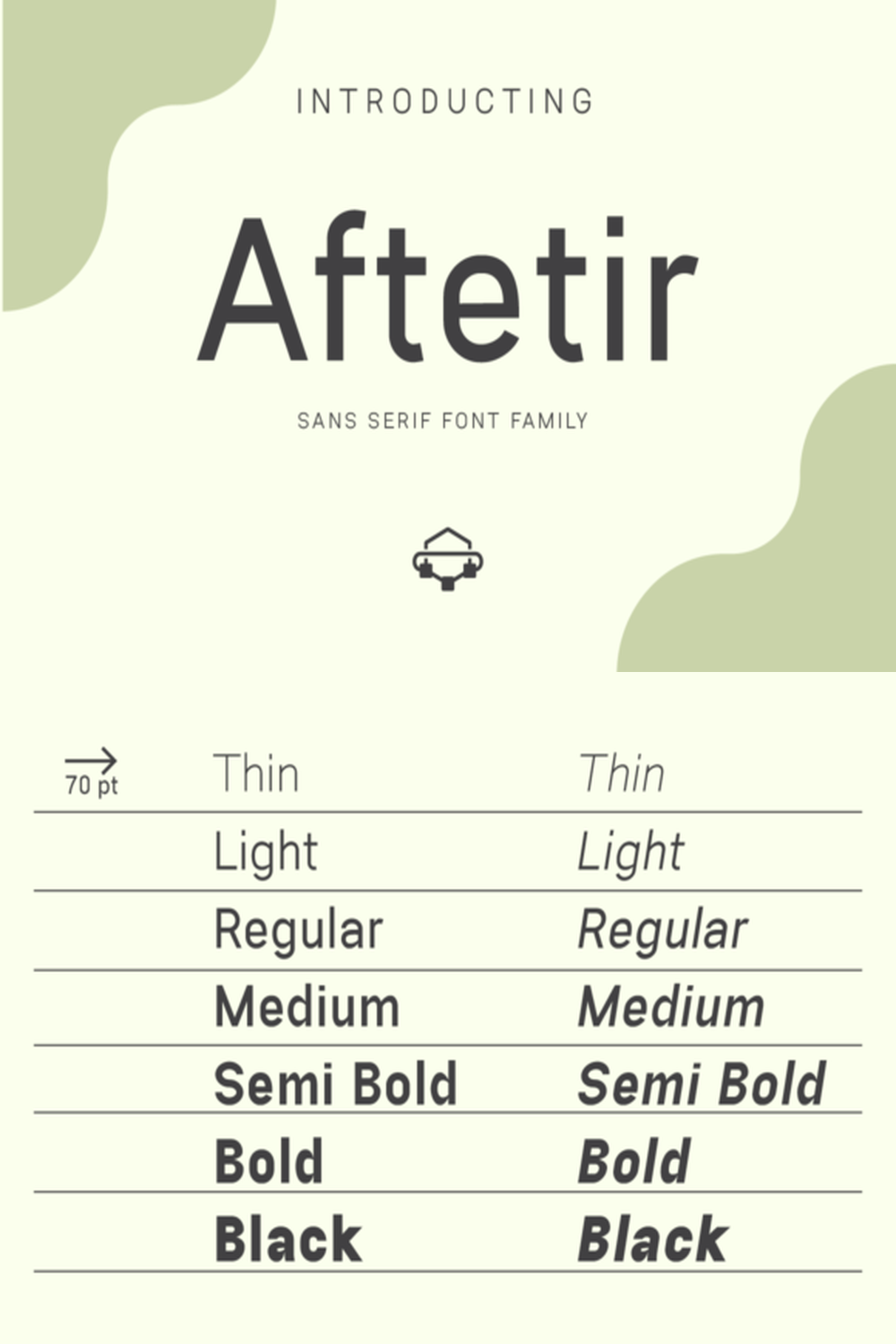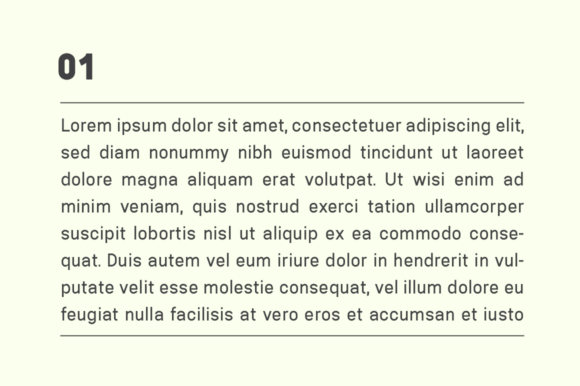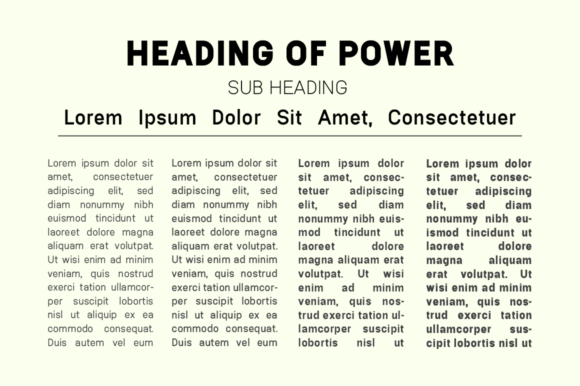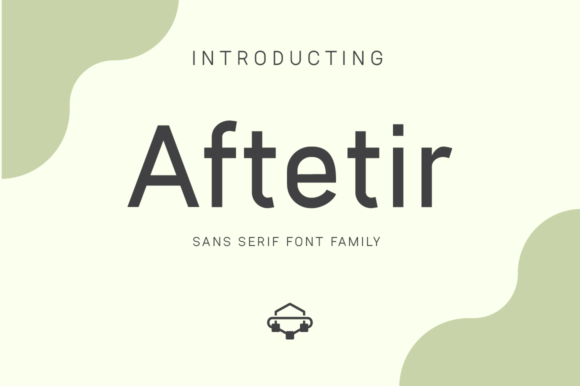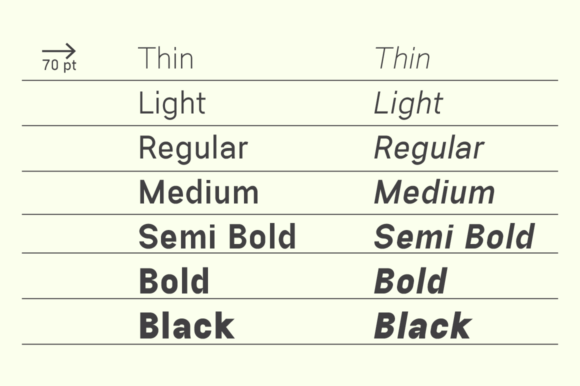
Aftetir Font: A Modern & Versatile Sans Serif for Logo Design
About the Aftetir Font
Elevate your designs with Aftetir Font, a font that combines sophistication with readability. Aftetir is a simple sans serif font. Masterfully designed to become a true favorite, this font has the potential to bring each of your creative ideas to the highest level!
Aftetir Font Usage Examples